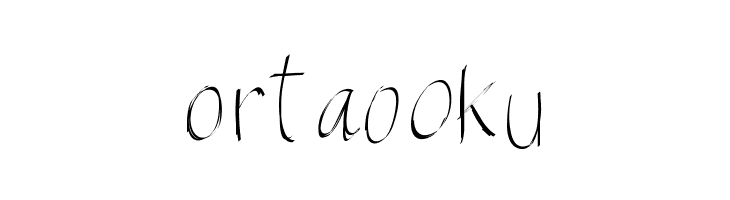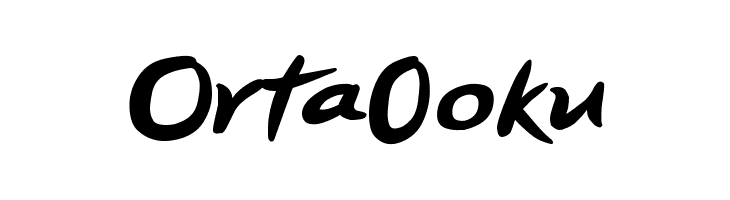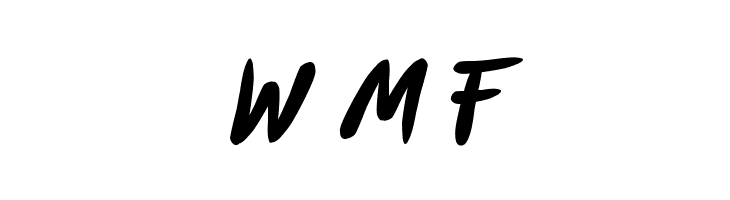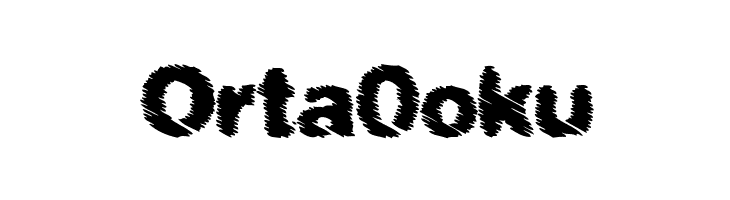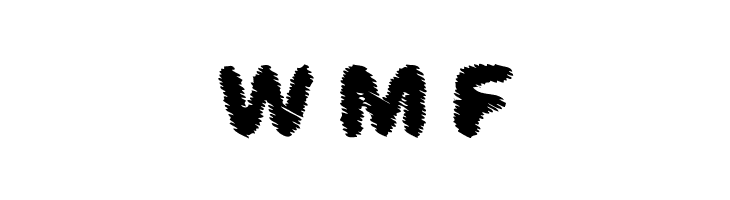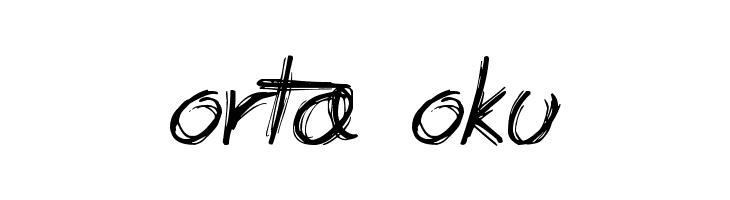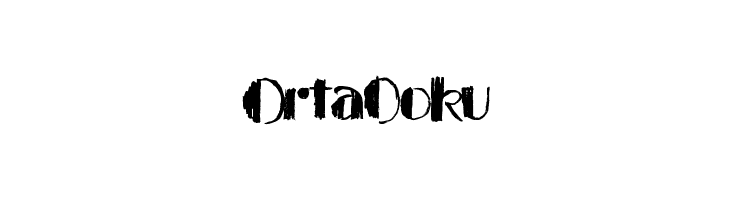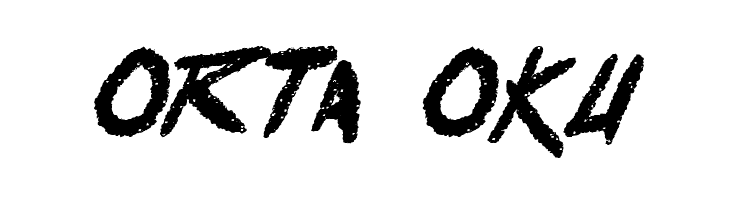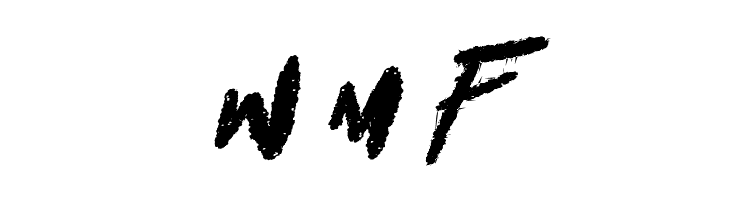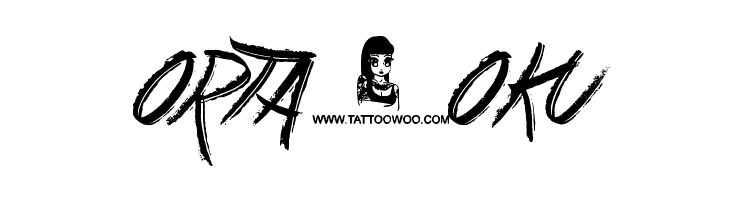
A dynamic, brush-style font with an artistic and hand-drawn appearance.
A bold, jagged font with a brush-like texture for dramatic impact.
A bold, brush-style font with dynamic, textured strokes.
A bold, italic, brush-style font with dynamic, energetic strokes.
A bold, expressive handwritten font with brush-like strokes and a playful style.
A bold, brush-style font with dynamic and expressive strokes.
A bold, hand-painted style font with dynamic, brush-like strokes.